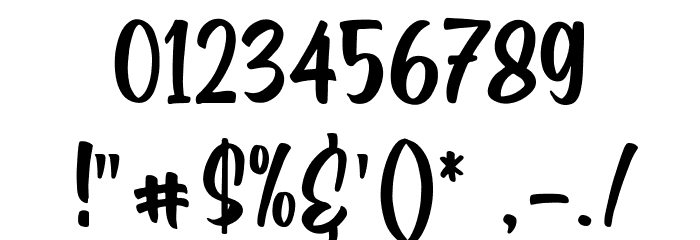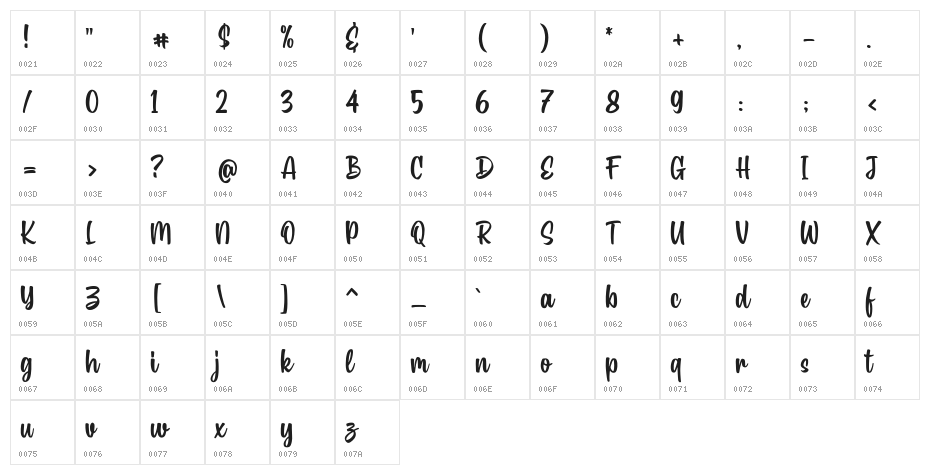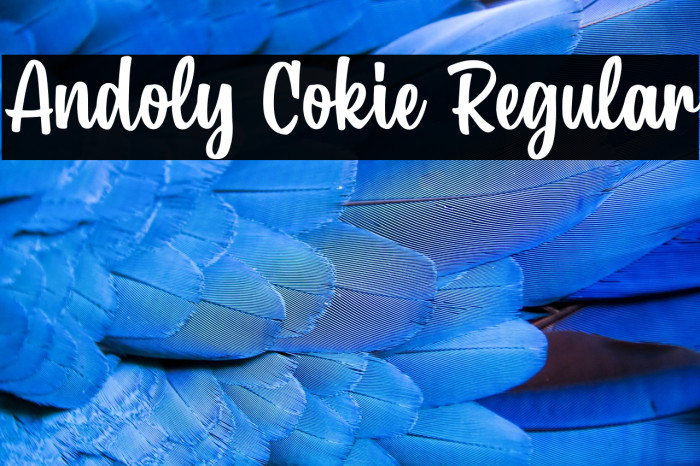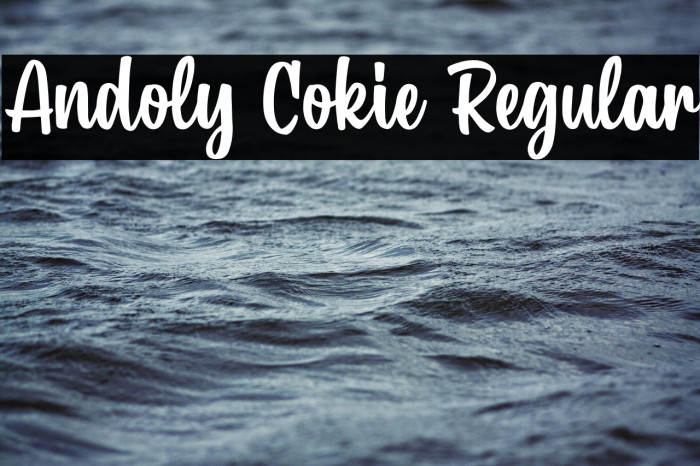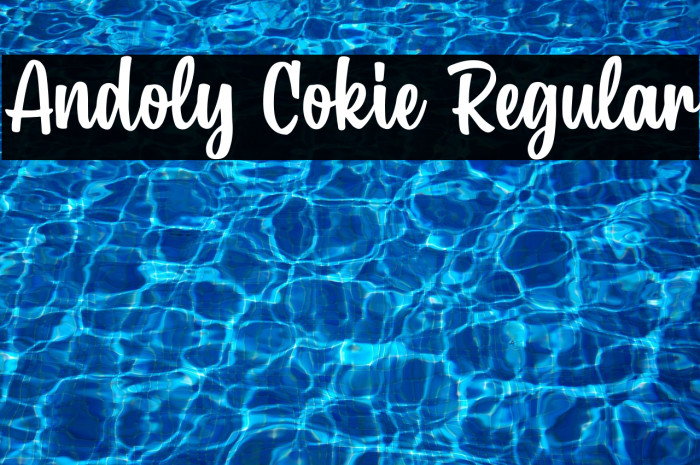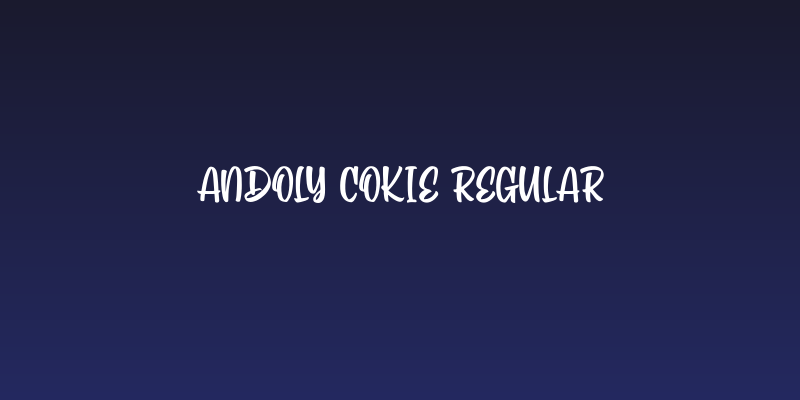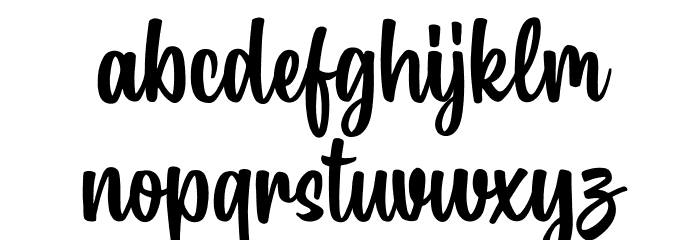
Andoly Cokie Regular Font
Andoly Cokie Regular Description
This font features a playful and energetic script style with a handwritten appearance. The characters are bold and rounded, giving a friendly and approachable feel. The uppercase letters are slightly taller than the lowercase, maintaining a consistent flow throughout. The strokes are smooth and fluid, with a slight slant that adds to the dynamic look. The numerals and special characters are designed to match the overall style, ensuring uniformity across all text. This font is ideal for projects that require a personal touch, such as invitations, greeting cards, or branding materials that aim to convey warmth and creativity.
| Proposed Projects | Ideal for invitations, greeting cards, branding, and creative projects requiring a personal touch. |